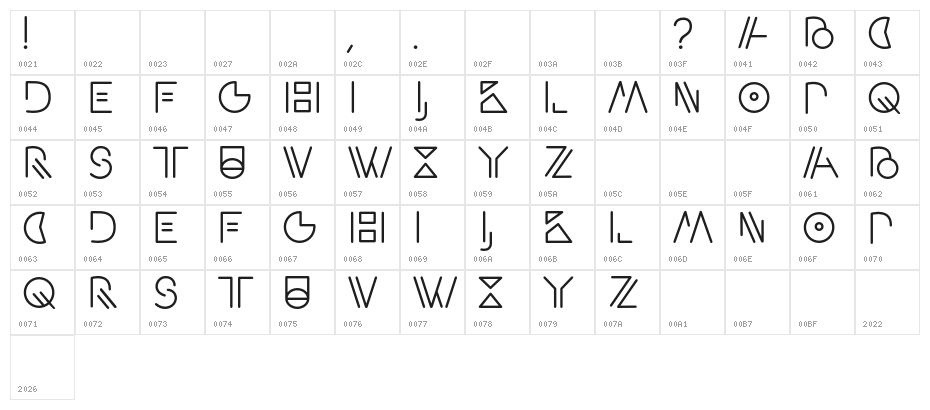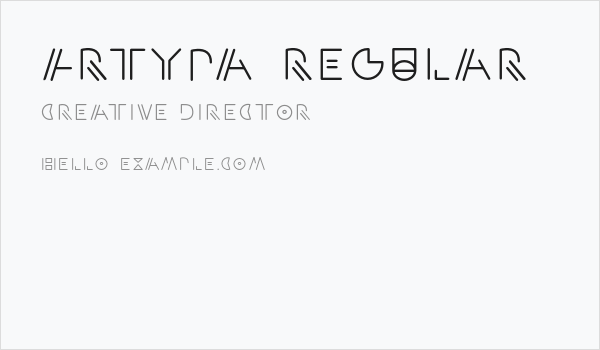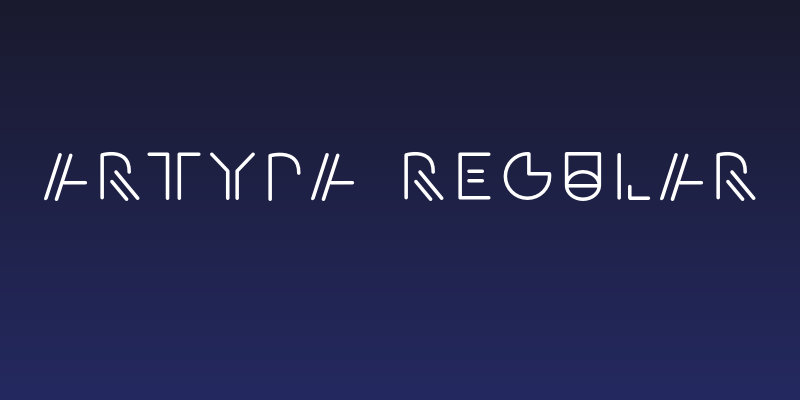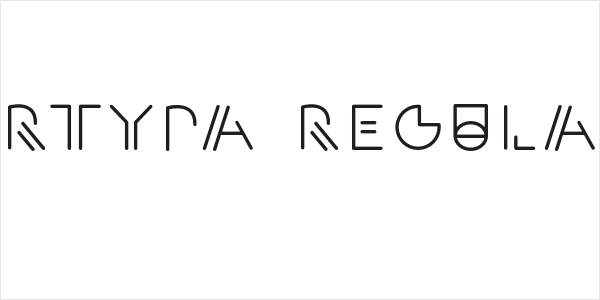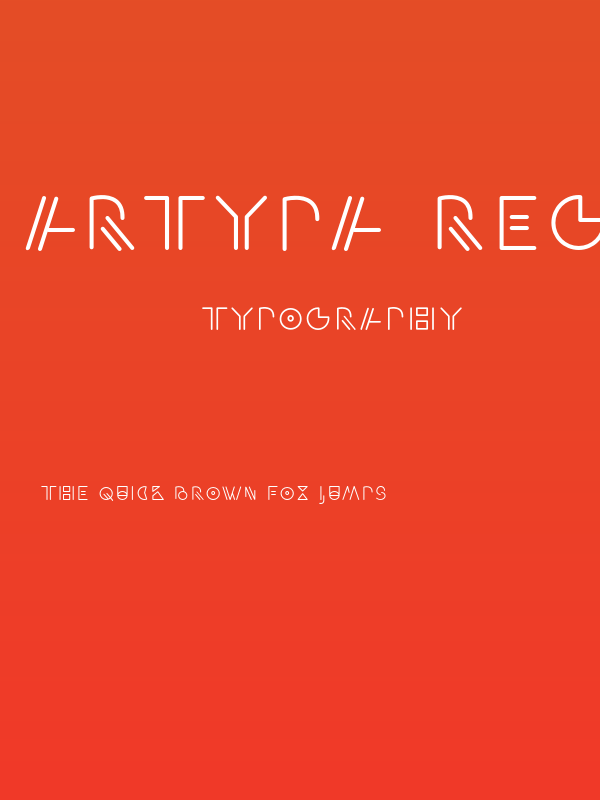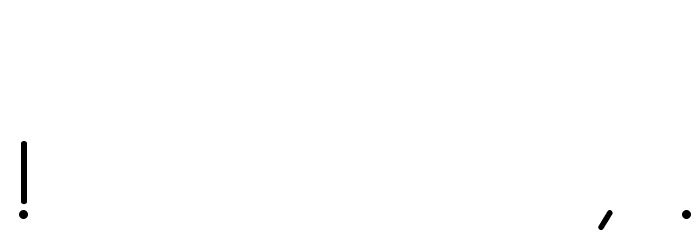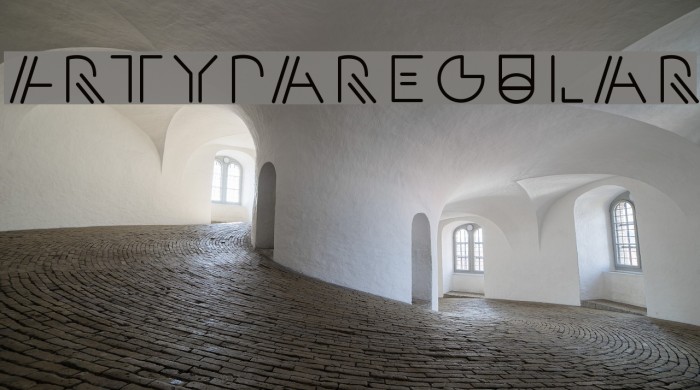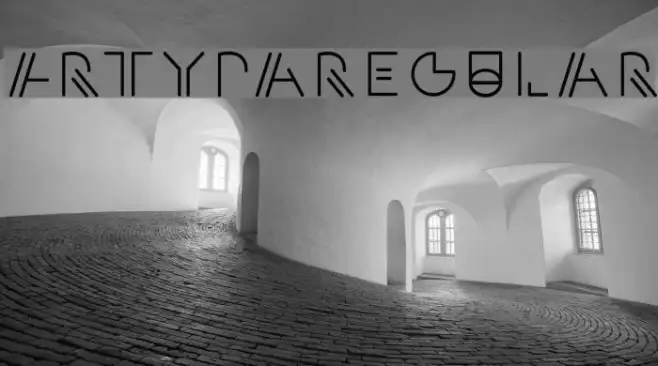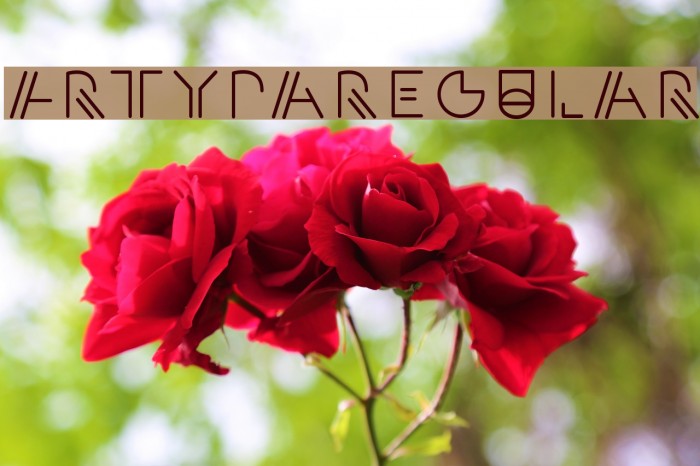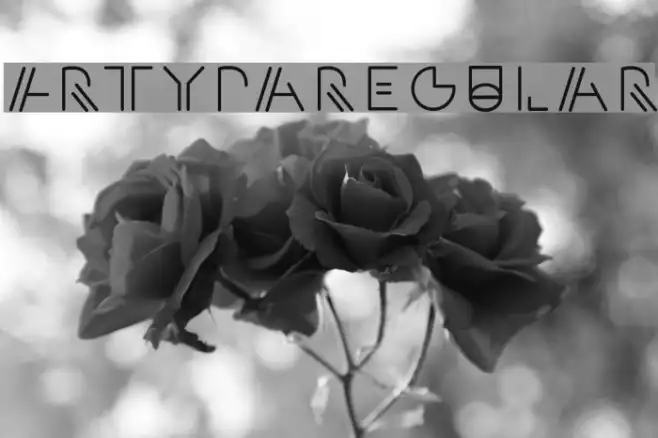
Artypa-Regular Font
Artypa-Regular Description
This font features a unique and modern geometric design, characterized by its use of clean lines and abstract shapes. The letters are constructed with a combination of straight lines and circular elements, giving it a futuristic and artistic appearance. The uppercase and lowercase letters maintain a consistent style, with some characters incorporating unexpected angles and cuts that add to its distinctiveness. The numerals and special characters follow the same design principles, ensuring uniformity across the typeface. This font is ideal for creative projects that require a bold and unconventional look.
| Proposed Projects | Ideal for branding, posters, album covers, and digital art projects. |